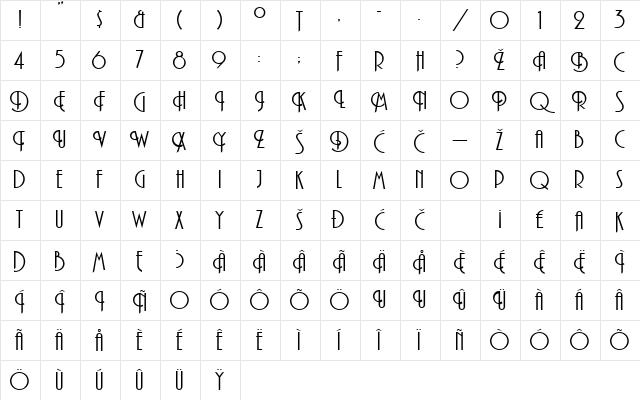
Andes Regular Free Font
Andes Regular
Andes Family
Design Context for Andes
Andes is a composed and adaptable typeface that performs quietly and consistently across a wide range of design contexts.
Pro Tip: Use Andes in both headline and body roles to test its range before committing to a single application.